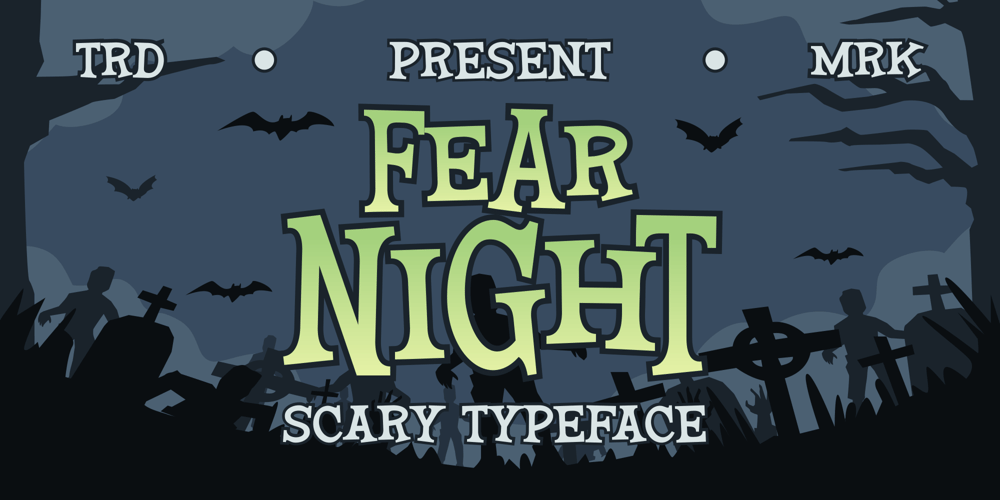
Fear Night Font Family was designed by Gilang Ternadho and published by Maikohatta. Fear Night contains 1 styles and family package options. Introducing our new product Fear Night – Scary TypefaceThis font is a type of font specifically designed to create a spooky, mysterious atmosphere and depict the spirit of Halloween celebrations. This font can be used in various Halloween-related media, such as party invitations, posters, merchandise designs, greeting cards, warning signs, or within website designs with Halloween themes.